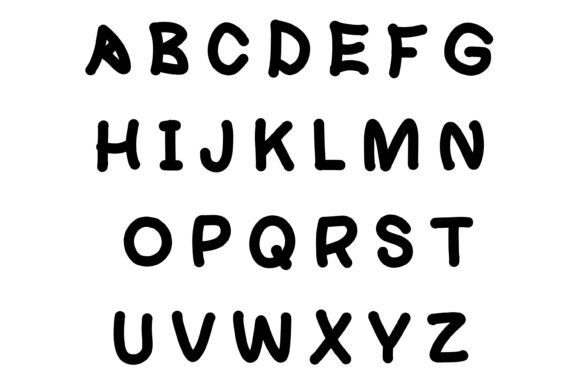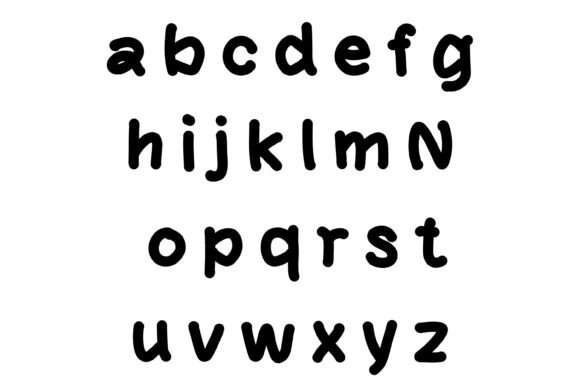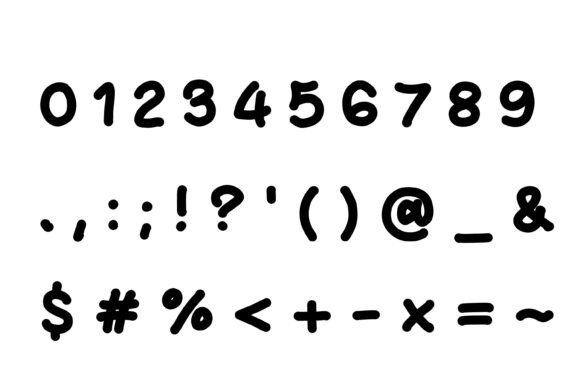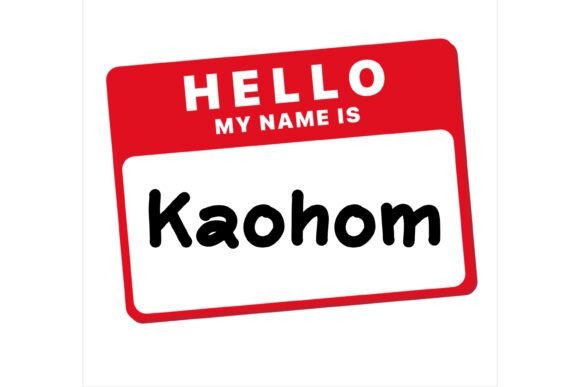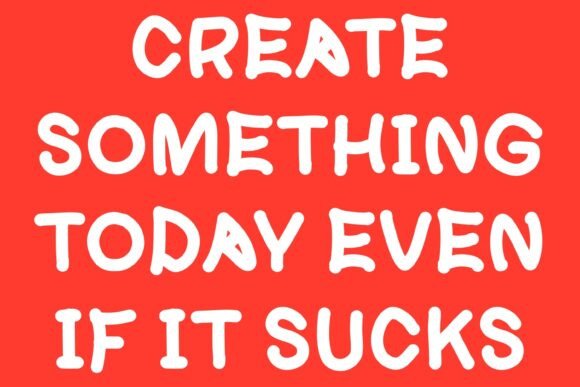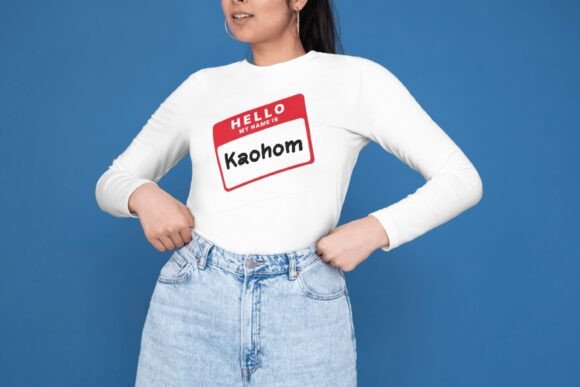
Introduction to Kaohom Font
Who hasn’t felt the rush of excitement when creating something from scratch? For designers, it’s that moment when the perfect font comes along and brings a project to life. For me, it was when I stumbled upon the Kaohom Font – a friendly and playful handwritten font that added a touch of warmth to my latest design project. With its smooth, rounded marker style, this font is a game-changer for anyone looking to add a casual yet creative touch to their work.
Whether you’re working on kids-themed designs, quote shirts, branding, stickers, or educational graphics, the Kaohom Font is an excellent design resource to have in your toolkit. Its free download and transparent background make it easy to incorporate into high-quality creative projects, and its high quality ensures that it will always look great, no matter what you’re working on.
Key Features of Kaohom Font
Honest Review: Kaohom Font
As a designer, I’m always on the lookout for unique and high-quality design resources to elevate my creative projects. Recently, I had the chance to try out the Kaohom Font, and I’m excited to share my honest review with you.
- ✨ High-quality design: The Kaohom Font is a beautifully crafted font with a unique and stylish aesthetic.
- ⚠️ Limited character set: The Kaohom Font only includes a limited character set, which may not be suitable for longer texts or complex projects.
- ⚠️ Not ideal for body text: While the font is perfect for headings and titles, it may not be the best choice for body text due to its unique style.
Overall, I’m impressed with the Kaohom Font’s unique design and high-quality aesthetic. While it may have some limitations, it’s an excellent addition to any designer’s toolbox, especially for creative projects that require a bold and eye-catching font.
The Kaohom Font is commonly used for creating social media graphics, logos, posters, and presentations. Its high-quality design makes it perfect for any creative project that requires a professional look.